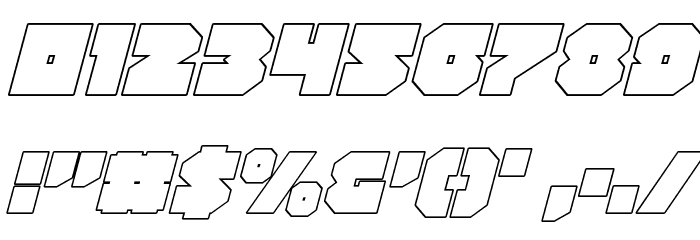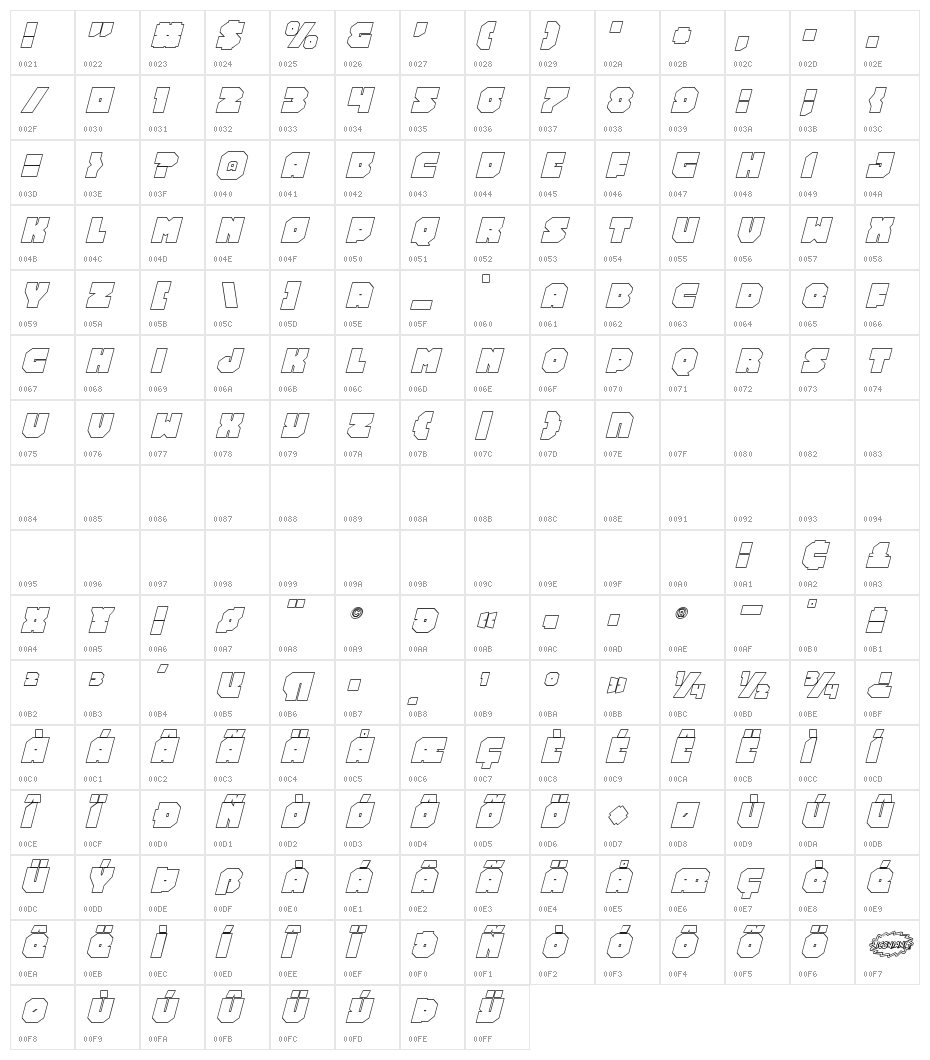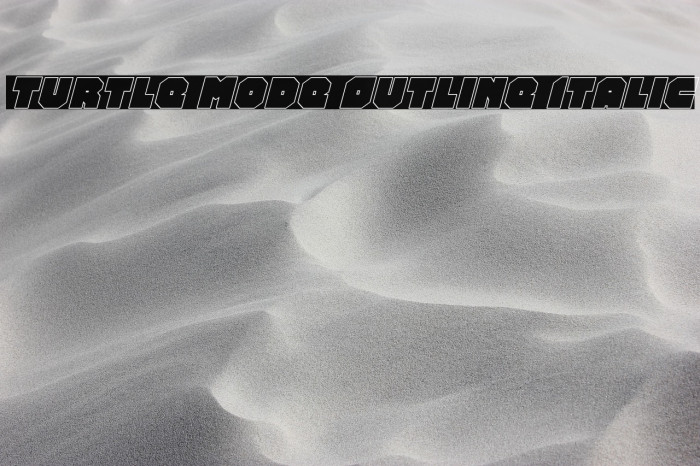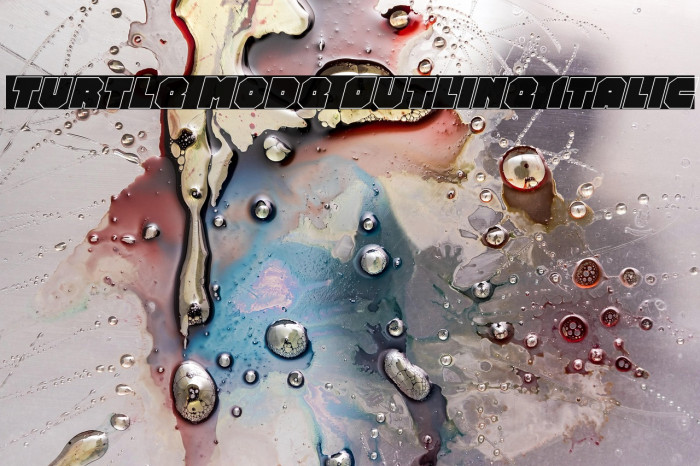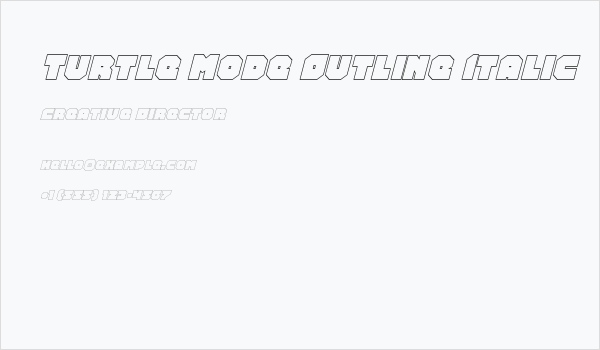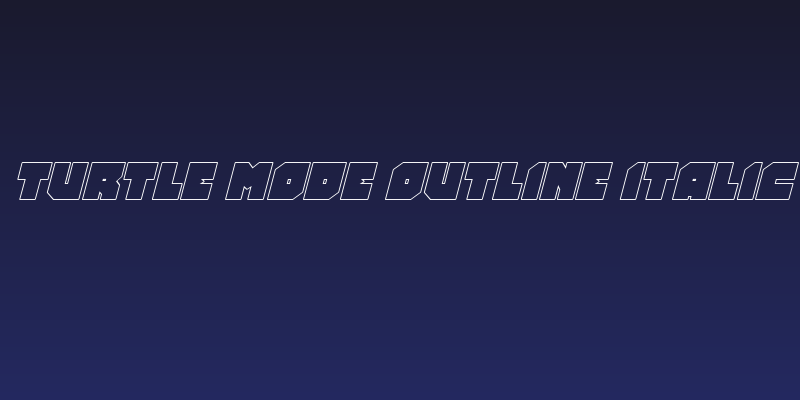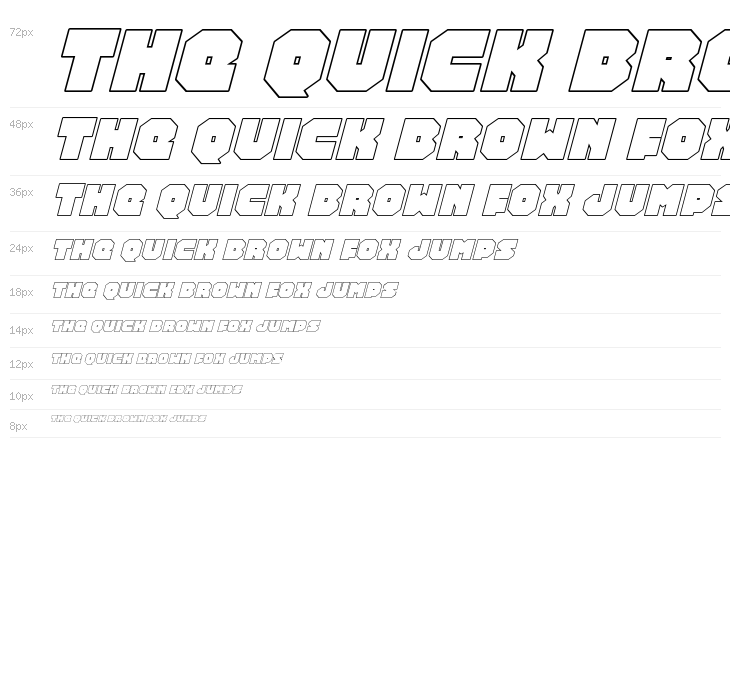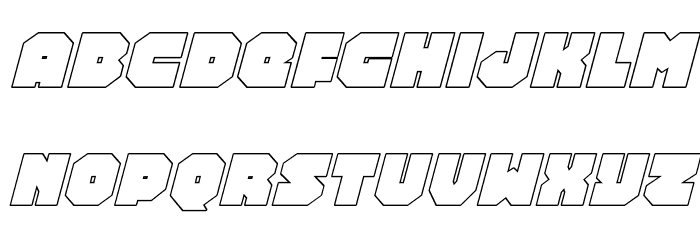
Turtle Mode Outline Italic Font
Turtle Mode Outline Italic Description
This font features a bold, geometric style with a distinct outline that gives it a three-dimensional appearance. The characters are italicized, adding a dynamic and forward-leaning effect. Each letter and number is crafted with sharp angles and straight lines, creating a futuristic and edgy look. The outline design enhances the visual impact, making it suitable for attention-grabbing headlines or titles. The spacing between characters is tight, which contributes to its compact and cohesive appearance. This font's unique style makes it stand out, ideal for projects that require a modern and bold statement.